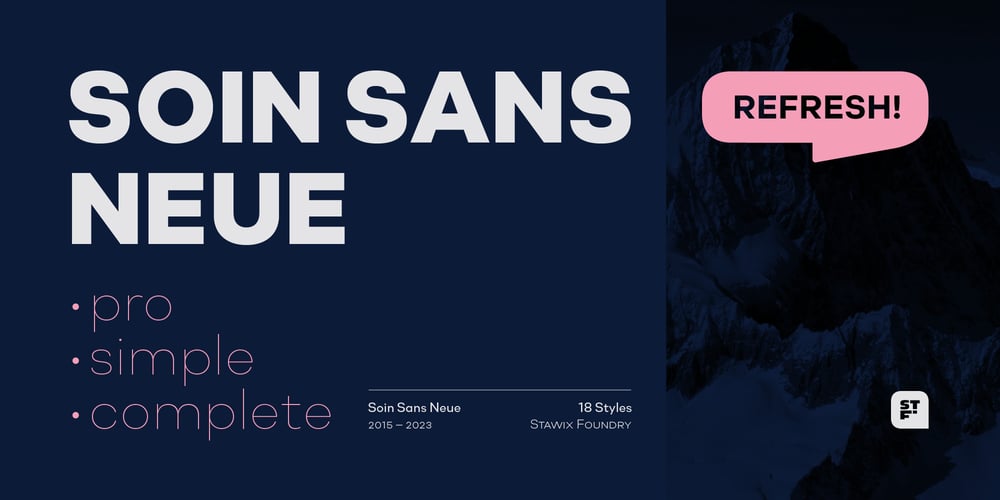
Soin Sans Neue Font Family was designed by Stawix Ruecha and published by Stawix. Soin Sans Neue contains 19 styles and family package options. 10 hours a day for almost as long as one anniversary of the Olympics to harvest the experience of designing many typefaces, thinking process and refining the craftmanship throughout these years. From Soin Sans that has been designed and released in 2011 until now, it has come to the right time to push a typeface like Soin Sans itself beyond the boundary, in terms of both usage and equipped features to serve many context of design as perfect as us, Stawix Foundry can offer to you. Soins Sans Neue is the evidence of how Stawix Foundry grows. If one seeks for a type that portrays a simple look, modern but still have a touch of humanist and a little pinch oldstyle, this little one of ours, Soins Sans Neue is the answer we have prepare for you. Technically, we are fully armed with c2sc, cpsp, frac, onum, salt and many more to minimize the chance of choosing other fonts in the project that requires diversities. Without further ado, please welcome Soins Sans Neue!